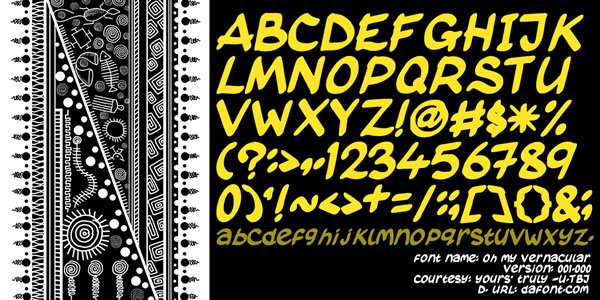
Introduction to Oh My Vernacular Font
This beautiful typeface can be used for various purposes such as mugs, headings, logos, invitations, newspapers, and much more.
This beautiful typeface can be used for various purposes such as mugs, headings, logos, invitations, newspapers, and much more!
Key Features of Oh My Vernacular Font
Why Choose Oh My Vernacular Font?
Oh My Vernacular Font offers exceptional quality and versatility, making it a valuable addition to your design toolkit. Whether you’re creating for personal projects or commercial use, Oh My Vernacular Font delivers professional results.